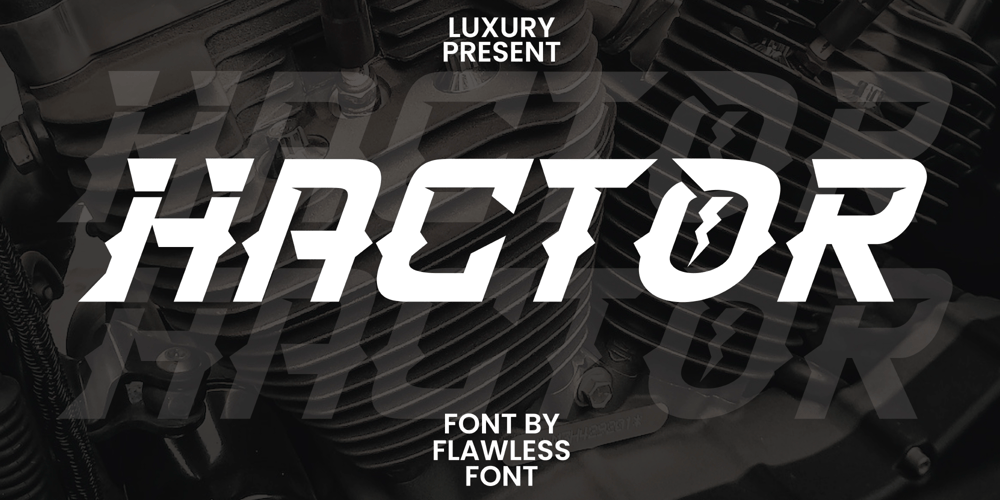
Hactor
Hactor font
Hactor Font Family was designed by Achmad Yani and published by Flawlessandco. Hactor contains 1 styles and family package options. Introducing “Hactor” – a bold and impactful display sport typeface designed to make a statement. With its strong letterforms and athletic-inspired design, Hactor brings a sense of power and competitiveness to your sports-related projects.There’s some connected letters and some alternates that suitable for any graphic designs such as branding materials, t-shirt, print, business cards, logo, poster, t-shirt, photography, quotes .etcThis font support for some multilingual. Also contains uppercase A-Z and lowercase a-z, alternate character, numbers 0-9, and some punctuation.If you need help, just write me! Thanks so much for checking out my shop